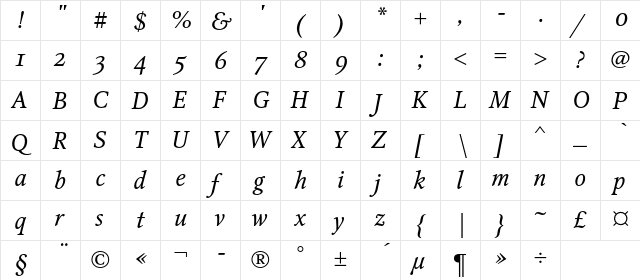
OctavaOSC Italic
Design Context for OctavaOSC Typeface
OctavaOSC offers clean, dependable letterforms without strong stylistic allegiance, making it a practical choice for designers who need flexibility. The dynamic lean of this cut emphasises speed and emphasis in any layout.
Pro Tip: Use OctavaOSC for emphasis, pull quotes, and subheadings where its slanted energy can add rhythm to the layout.